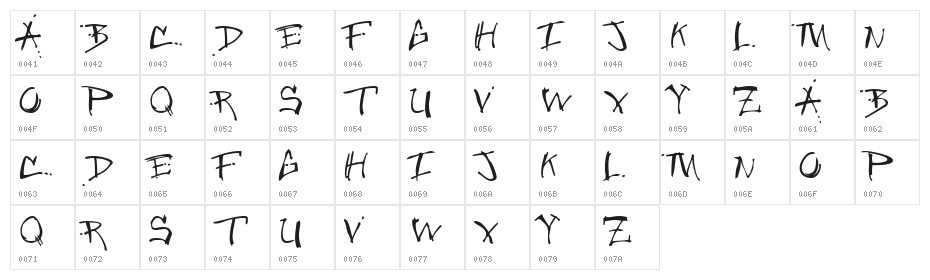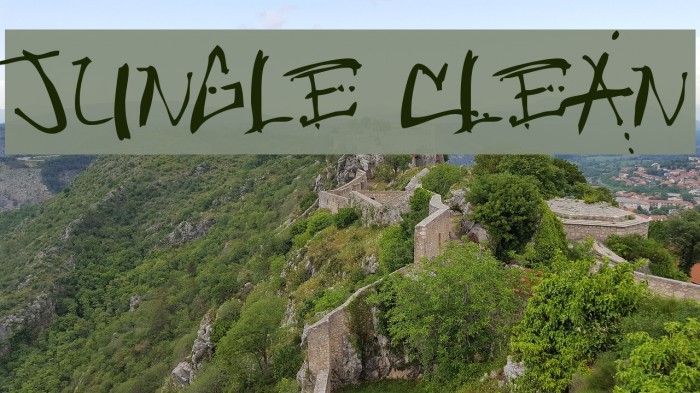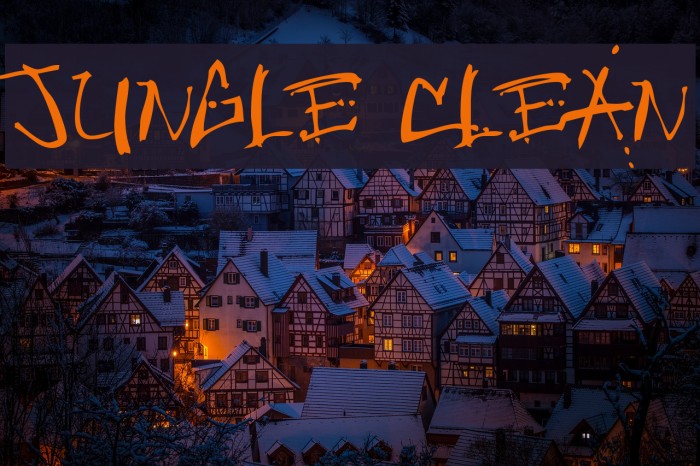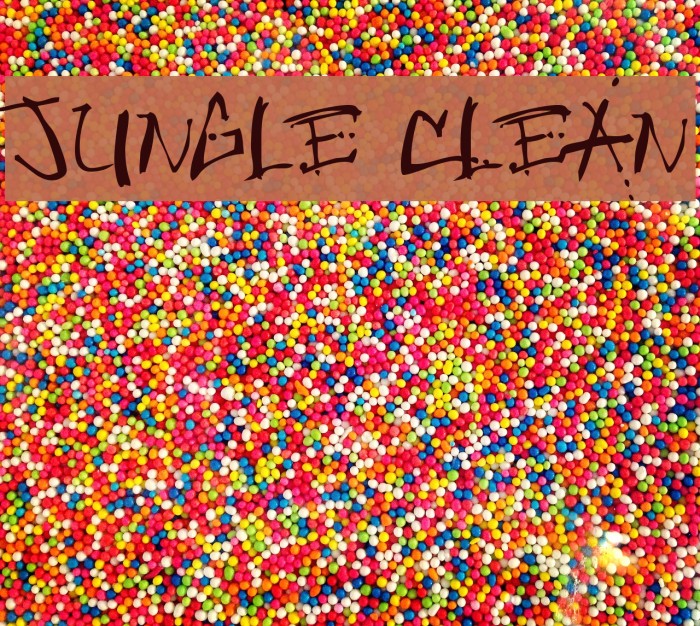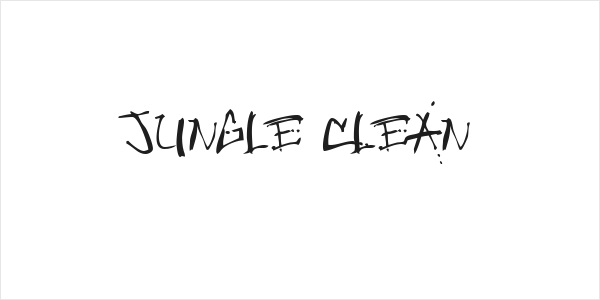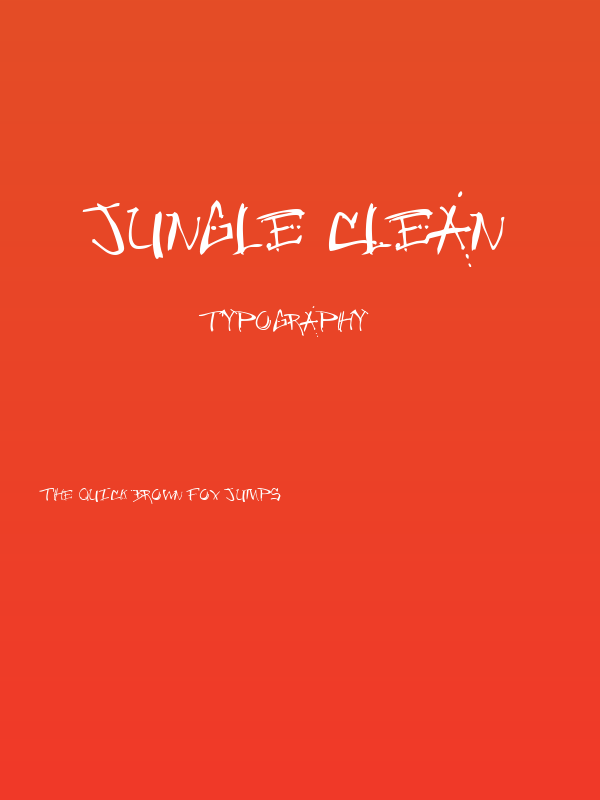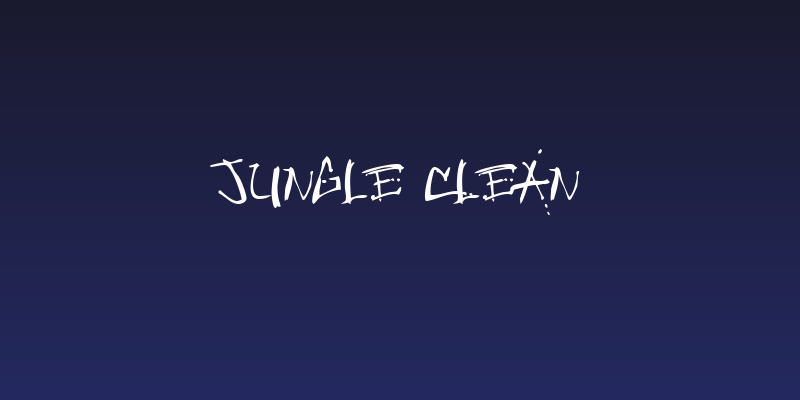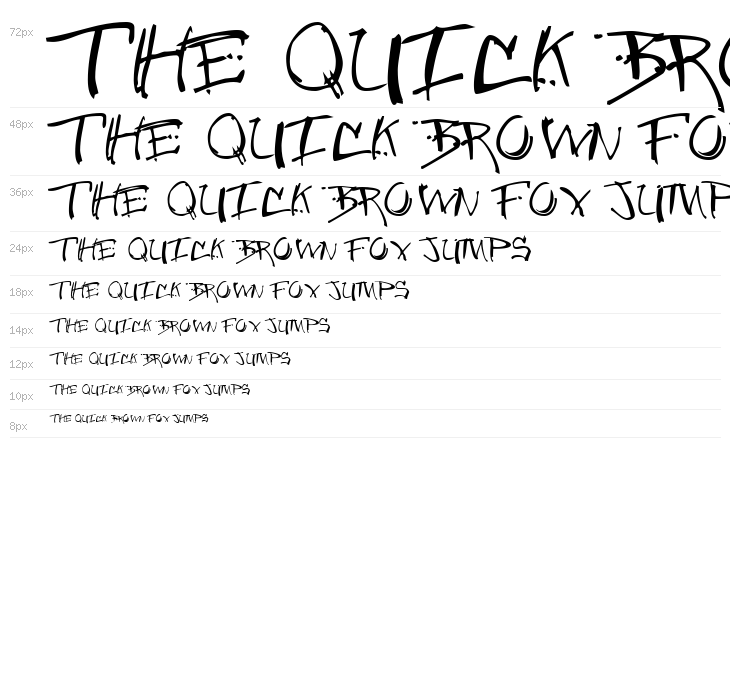
Jungle Clean Font
Jungle Clean Description
This font features a dynamic and expressive style, characterized by its brush-like strokes and irregular forms. The uppercase letters exhibit a playful yet edgy appearance, with varying line thicknesses and a slightly chaotic arrangement that suggests movement and energy. The lowercase letters maintain a consistent style, complementing the uppercase with their own unique flair. The font's overall aesthetic is reminiscent of graffiti or street art, making it ideal for projects that require a bold and unconventional look. The characters are well-defined, with a distinct personality that stands out, making it suitable for eye-catching designs.
| Overall Style | Modern, Urban |
| Proposed Projects | Ideal for street art designs, music album covers, urban-themed posters, and bold branding projects. |